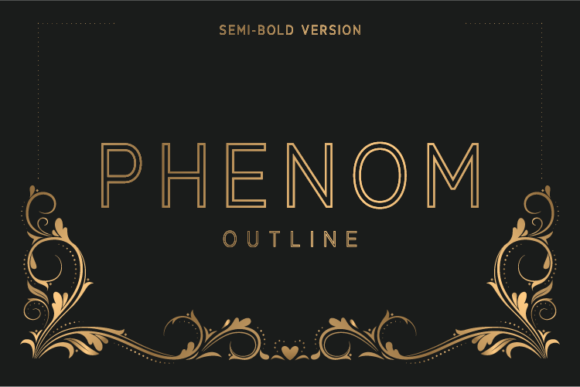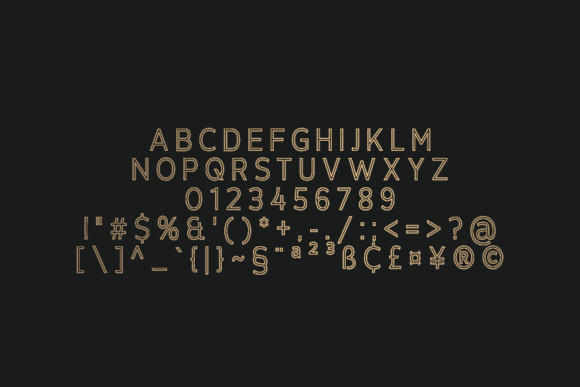
HomeSans Serif FontsPhenom Outline Semi-Bold Font Sans Serif Fonts Phenom Outline Semi-Bold Font FacebookXPinterestWhatsApp Phenom Outline Semi-Bold Font 1 of 2 About Phenom Outline Semi-Bold Font Phenom is a fancy, contemporary sans serif font. This amazing font includes a regular, and outline version It will complement any design need perfectly with its perfectly balanced mix of the smooth and sharp! DOWNLOAD NOW People also explored Perfectionista Font Cherry Crush Font Vintage Font Billa Brush Font Origin Alphabet Font Nielsent Font Wonderfull Obelia Font Wonderful Font Easter Egg Butterfly Font 293 0 TagsPhenom Outline Semi-Bold Font Previous articlePhenom Outline Bold FontNext articlePhenom Outline Medium Font LEAVE A REPLY Cancel reply Comment: Please enter your comment! Name:* Please enter your name here Email:* You have entered an incorrect email address! Please enter your email address here Website: Save my name, email, and website in this browser for the next time I comment. Personal Use Free Electroharmonix Personal Use Free Read more about this font Alligator Font Personal Use Free Read more about this font BD Algebra Personal Use Free Read more about this font Black Personal Use Free Read more about this font BLOG Using Fonts in Digital Marketing: Tips to Strengthen Your Brand Identity In the realm of digital marketing, every visual element plays a crucial role in shaping a brand's identity, and fonts are no exception. The... How to Cut Any Font on Cricut: Convert a Font to SVG (Free) Free Fonts Risk: Why Free Fonts Can Be Dangerous for Designers Elegant Wedding Invitation Fonts – Handwritten & Script Fonts